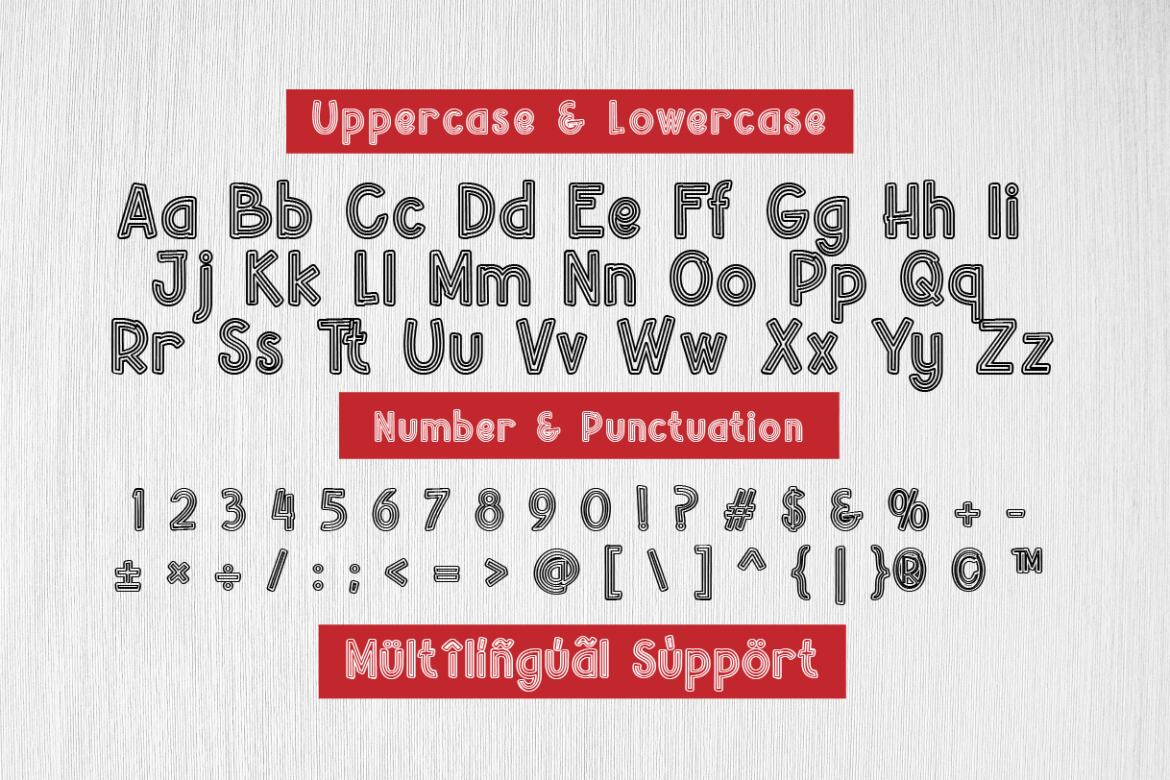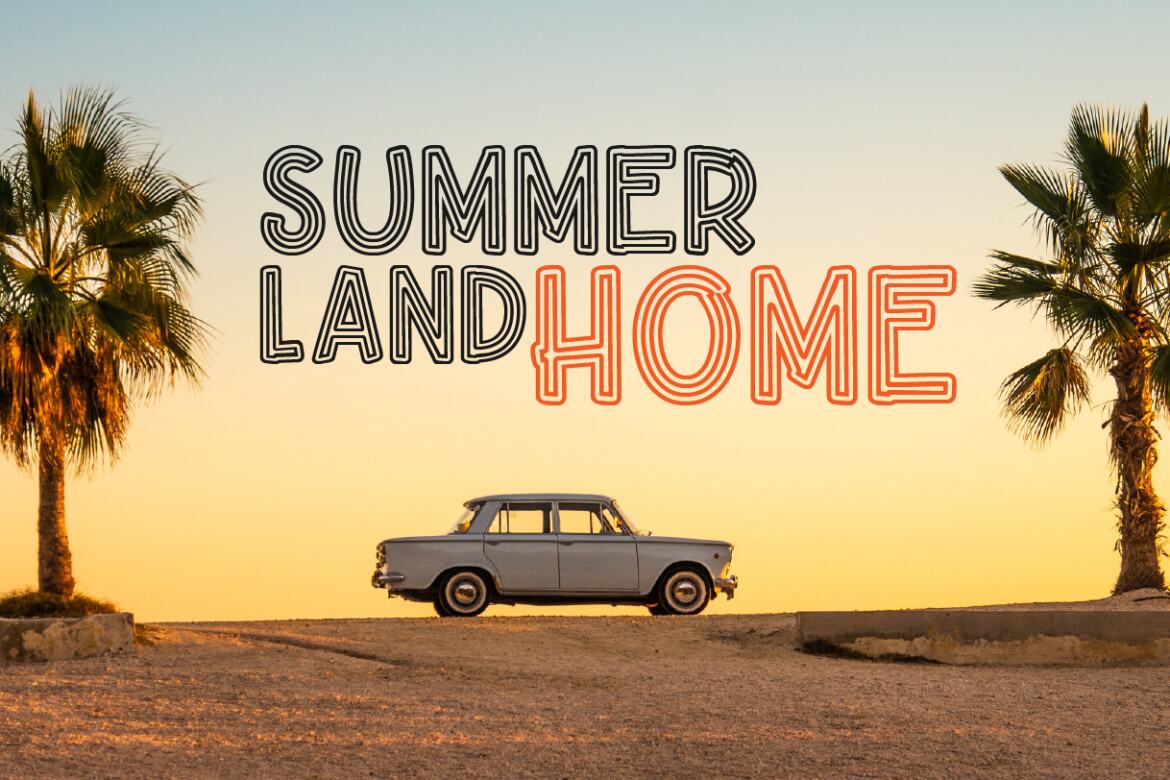
Beuna Line FREE Display Font
BEUNA LINE is A Multiline Whimsical Display Font with unique typeface sporty, modern, adventurous edge.
Made for giving titles an extra punch, Beuna Line packs a full set of capitals, numbers and punctuation. Be it gigs, sports events, or humble lost posters.
Each letter is a solved four line thick whimsical display.